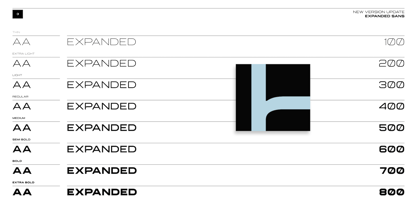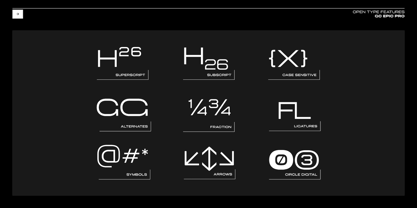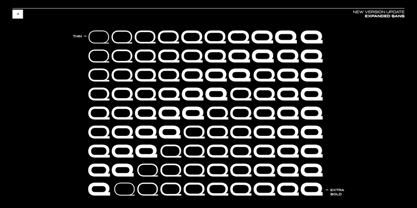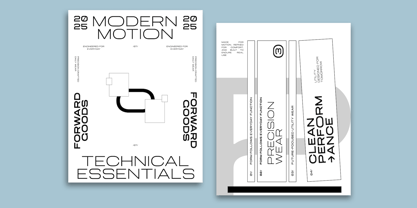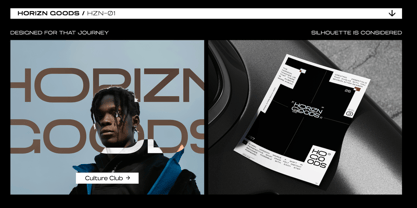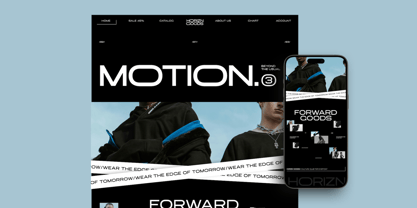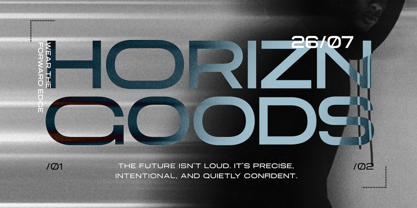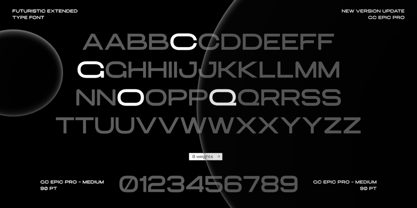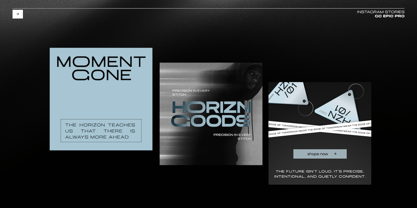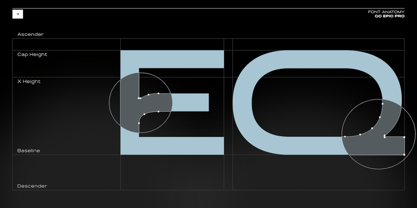
GC Epic Pro Vol.II
The GC Epic Pro Vol.II Font Family was designed by Muhammad Hafiizh Solana and published by Onyx Studio. GC Epic Pro Vol.II contains 8 styles and family package options. More about this family
GC EPIC PRO Vol. II – Future Extended Sans marks the next evolution of the EPIC PRO typeface, expanding the original concept with a broader family system and refined glyph construction. This update is designed to provide greater flexibility, consistency, and precision for contemporary and future-facing design projects. Built on its signature extended sans serif structure, Vol. II introduces improved proportions and smoother weight distribution across the expanded family. Key glyphs have been carefully reworked to enhance balance, legibility, and visual rhythm—ensuring stronger performance across both bold display settings and functional layouts. With its futuristic character, wide letterforms, and confident geometry, GC EPIC PRO Vol. II is ideal for branding systems, headlines, posters, editorial compositions, and modern digital interfaces. The expanded family empowers designers to create clearer hierarchy and cohesive visual systems while maintaining a strong, forward-looking identity. This second volume positions EPIC PRO as a more complete and versatile type system—refined, expanded, and ready for modern typography demands. What’s New in Vol. II: Expanded Typeface Family Refined & Enhanced Glyphs Improved Character Consistency Optimized for Display & Digital Use Multilingual Support Expanded. Refined. Evolved. GC EPIC PRO Vol. II is built for the future of typography.